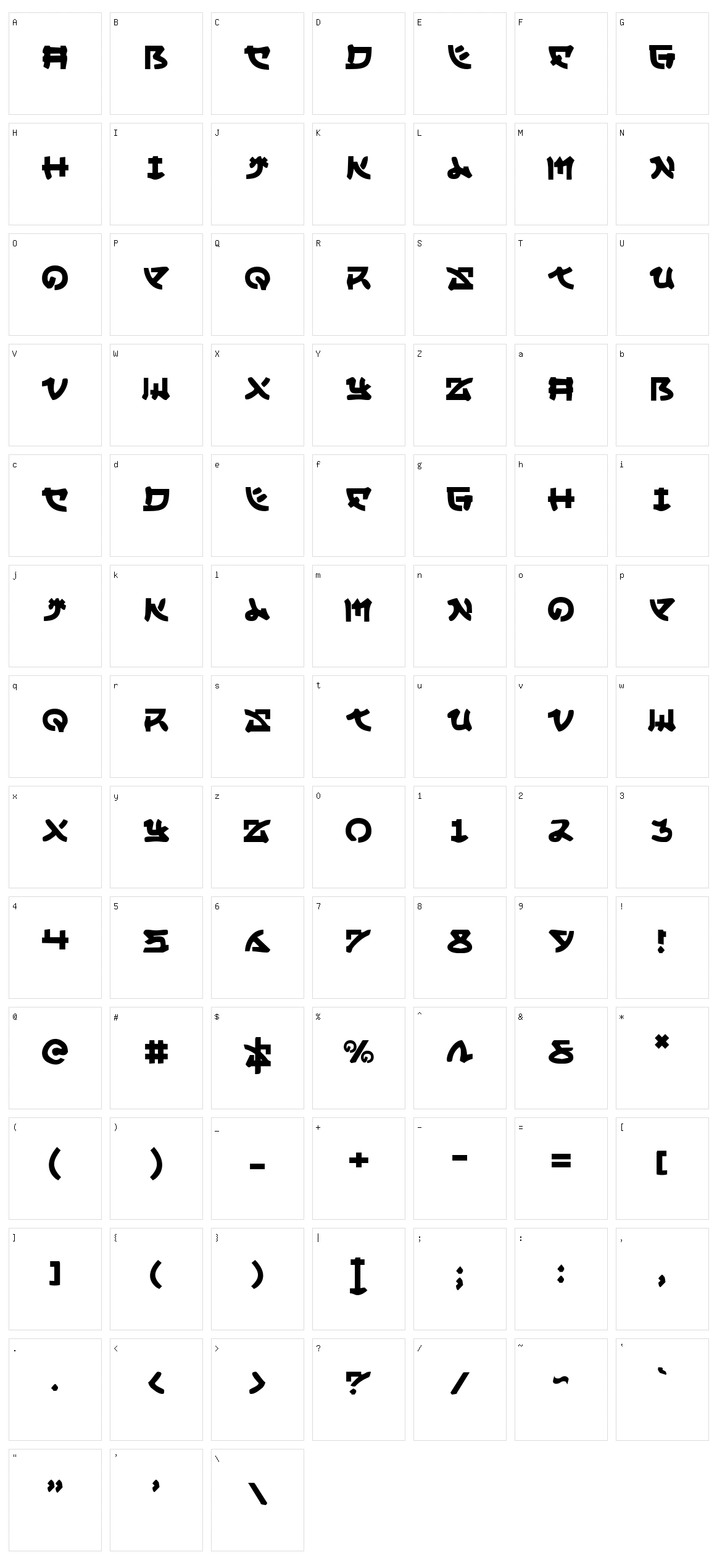
The free font Yama Moto is carefully designed by Iconian Fonts, showcasing a thoughtful balance of creativity and usability and falls under the Asian font style. When you download the ZIP file, it contains only 314.97 KB of font files, making it lightweight and quick to download. Please review the license details below to understand permitted usage and distribution rights. If license information is not available, we recommend using this font for personal projects only or contacting the author directly for commercial usage permissions.
2009 Iconian Fonts - Daniel Zadorozny
This font comes with the following 8 versions: Regular, Italic, Condensed, Condensed Italic, Academy, 3D, 3D Condensed and Leftalic.